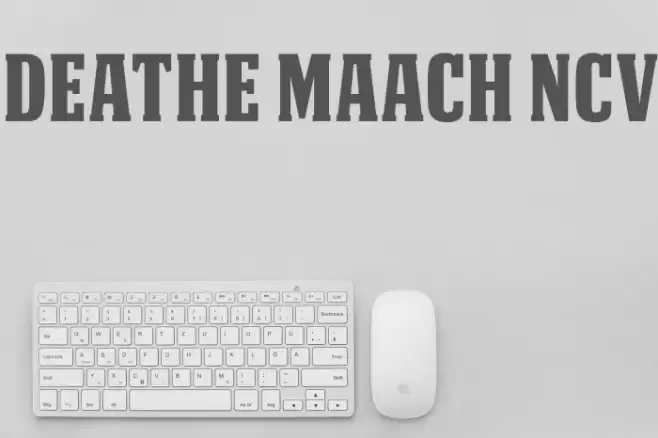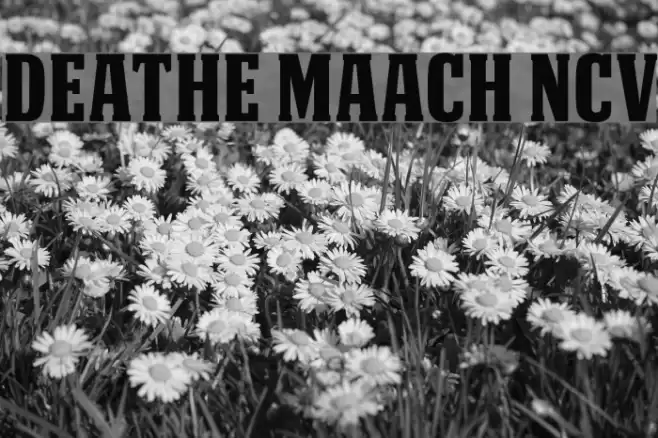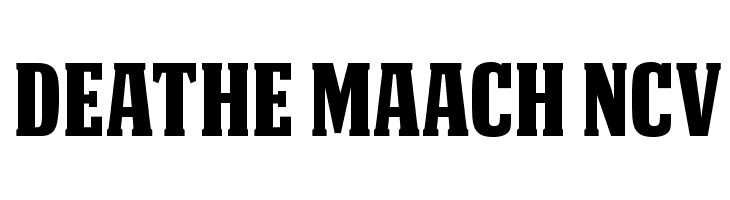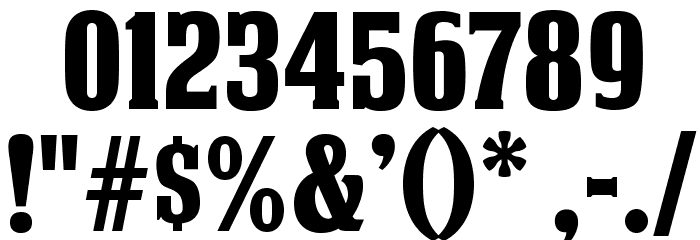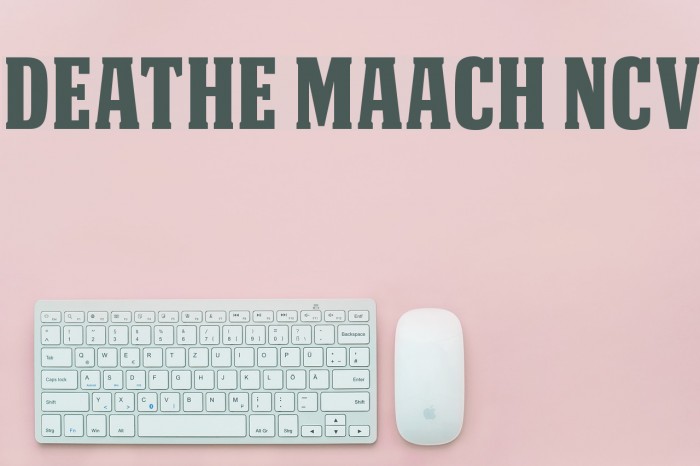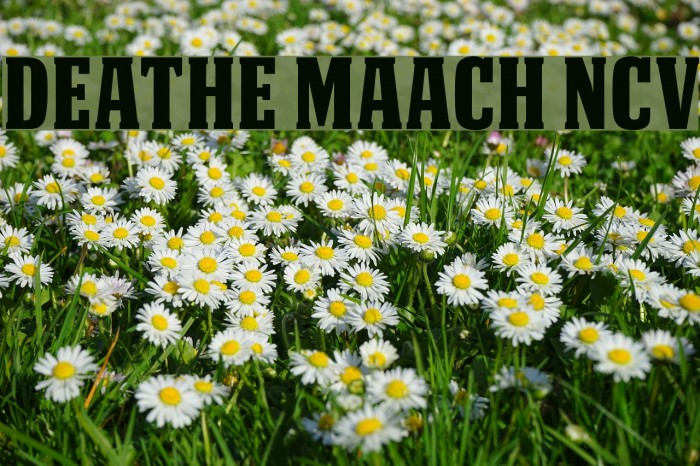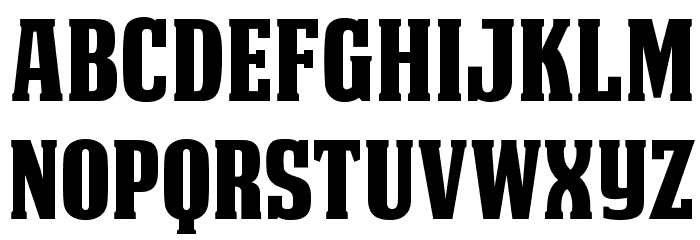
DEATHE MAACH NCV Font
DEATHE MAACH NCV Description
This font features bold, thick strokes with a strong presence, making it ideal for impactful designs. The characters are uniformly wide with a consistent weight, giving them a robust and sturdy appearance. The serifs are pronounced, adding a touch of classic elegance while maintaining a modern feel. The numbers and special characters are designed to match the boldness of the letters, ensuring a cohesive look across all elements. This font is well-suited for projects that require a strong visual impact, such as posters, headlines, and branding materials.
A bold, serif font with thick strokes and a strong, modern presence from Uncategorized fonts.
- Proposed Projects: Ideal for posters, headlines, branding, and any design requiring a bold statement.